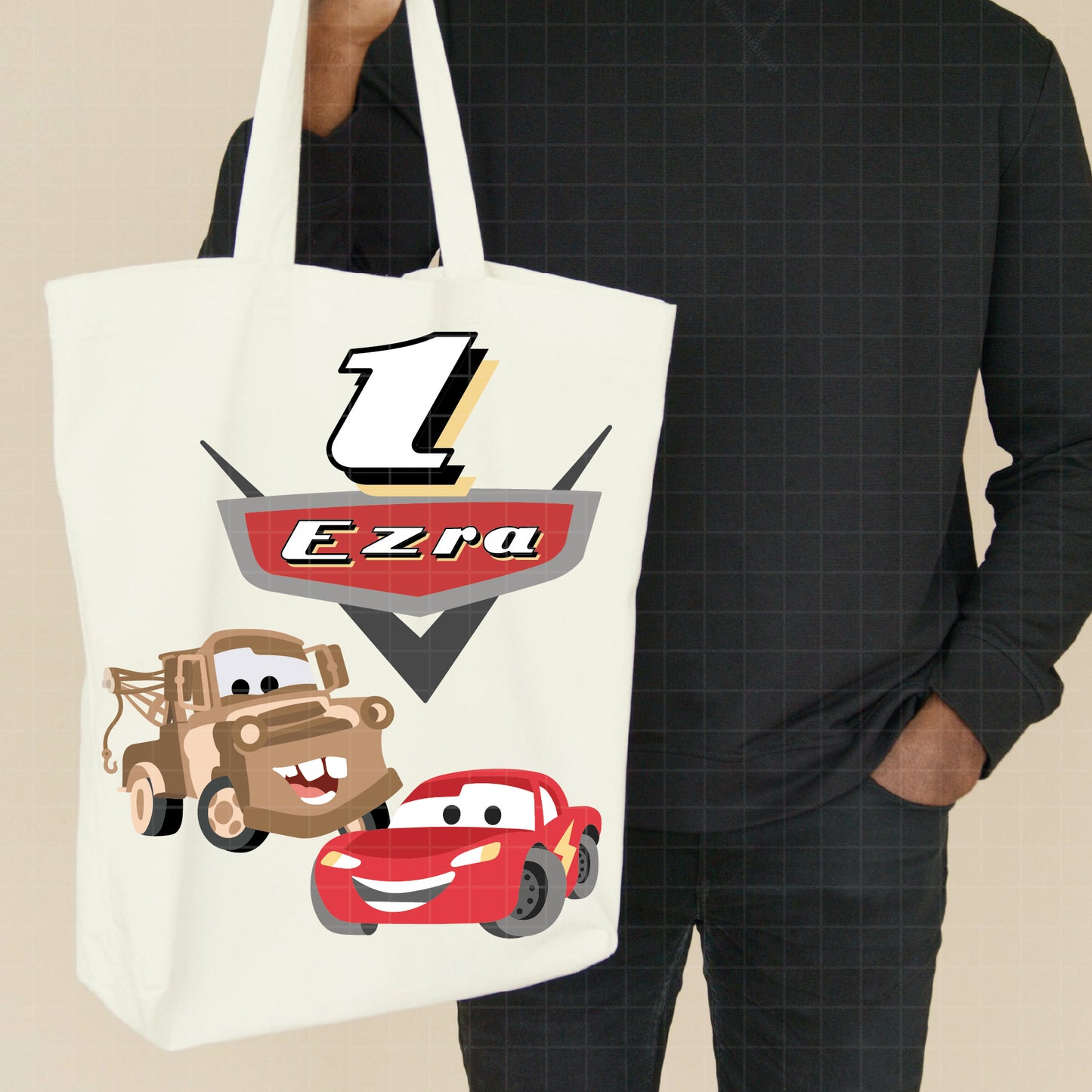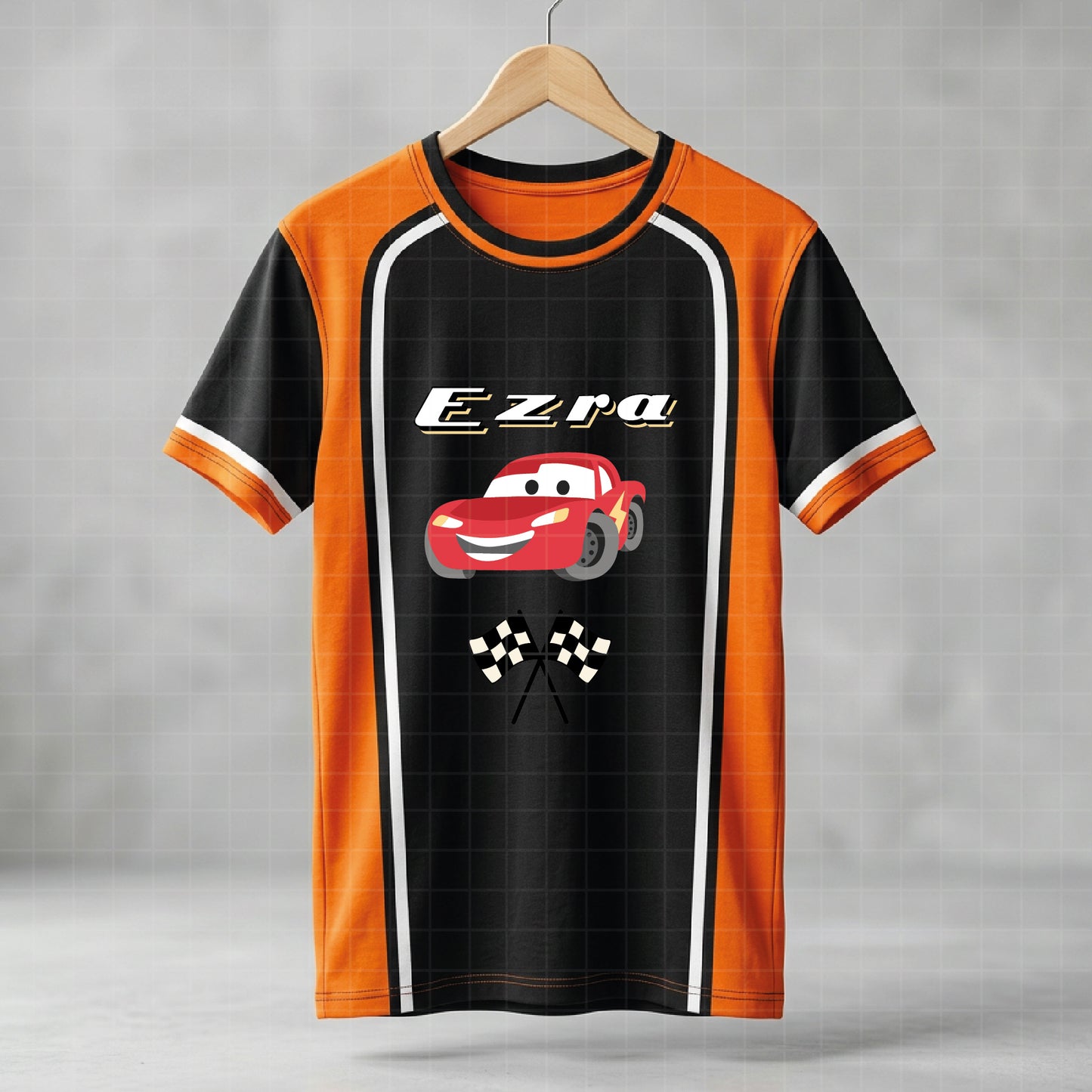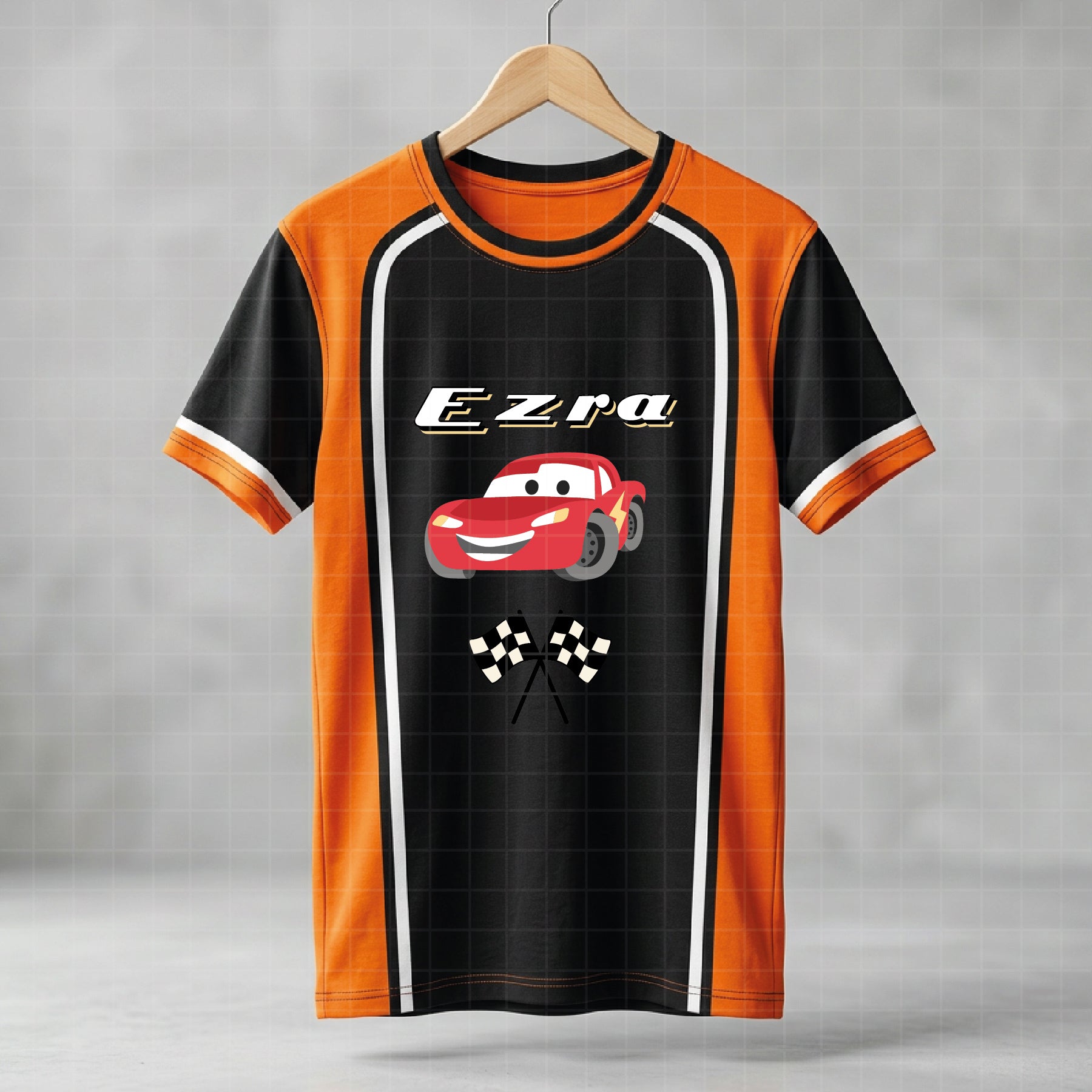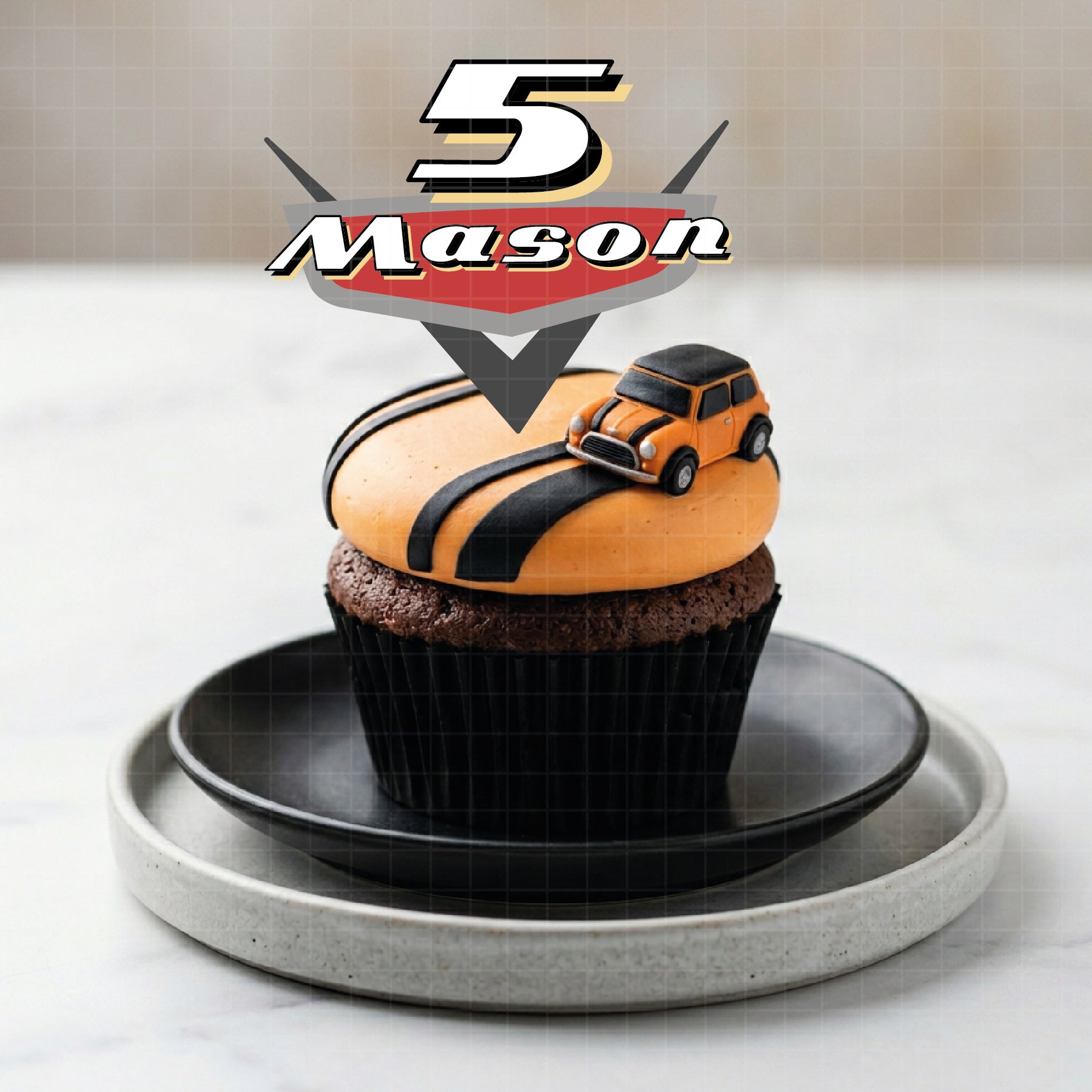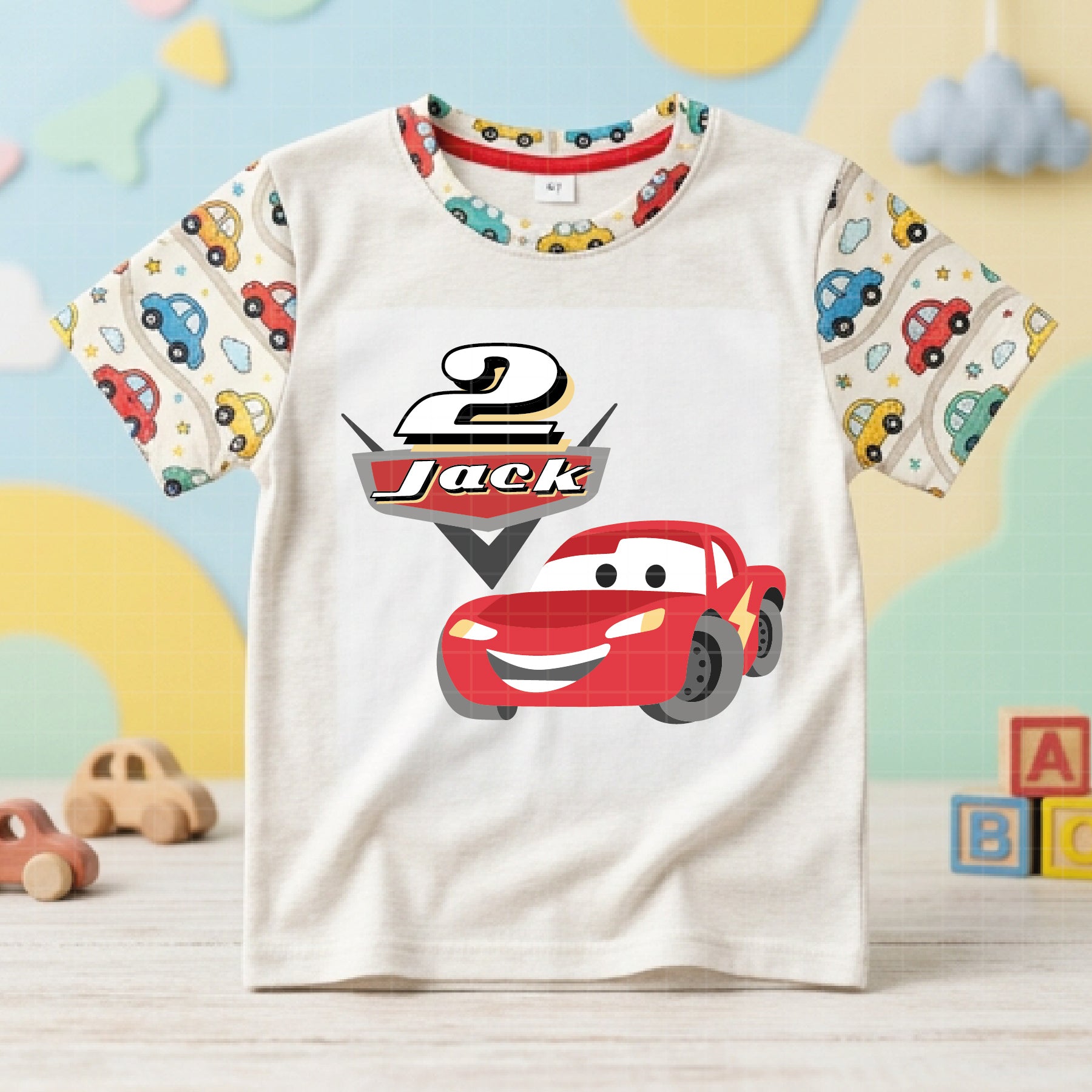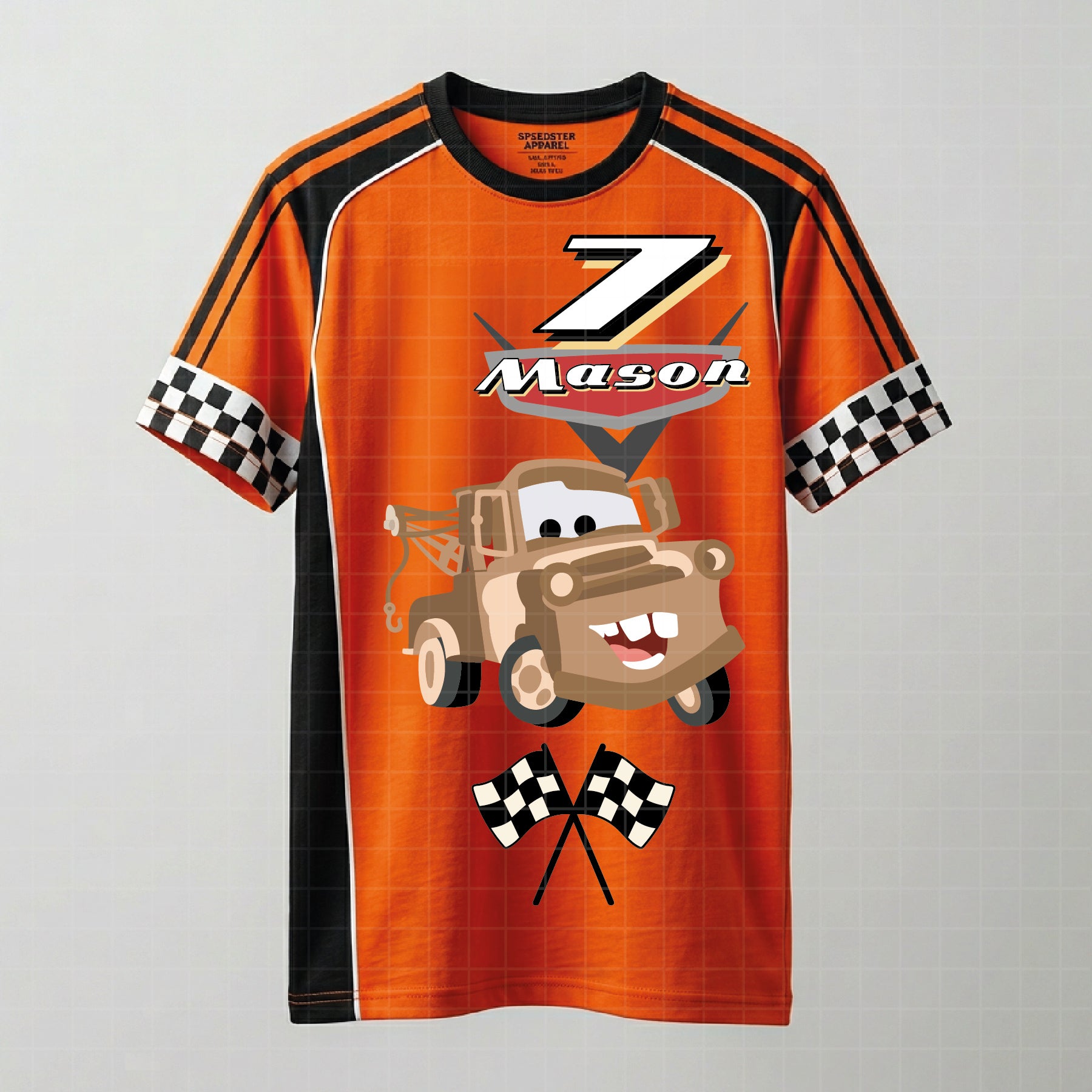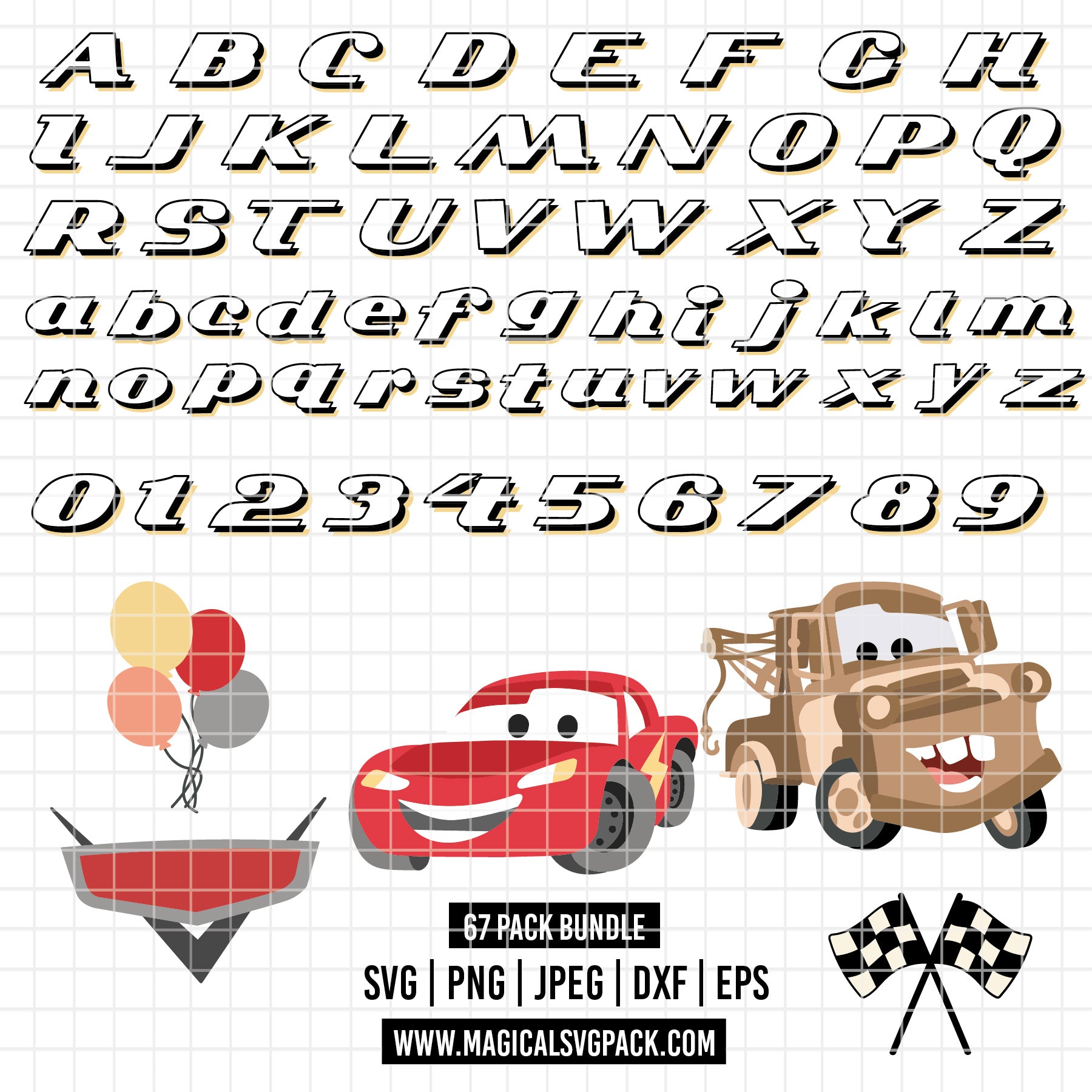
🏁 CARS RACING SVG BUNDLE — Bold Italic Font with Gold Drop Shadow + Lightning McQueen + Mater + Icons + Full Alphabet + Numbers | Custom Name Ready!
Use the bold italic alphabet to spell any name and combine it with the numbers and character cliparts to create fully personalized designs.
✔ Full Alphabet A–Z UPPERCASE (bold italic racing style with gold shadow)
✔ Full Alphabet a–z lowercase (bold italic racing style with gold shadow)
✔ Numbers 0–9 (matching gold shadow style)